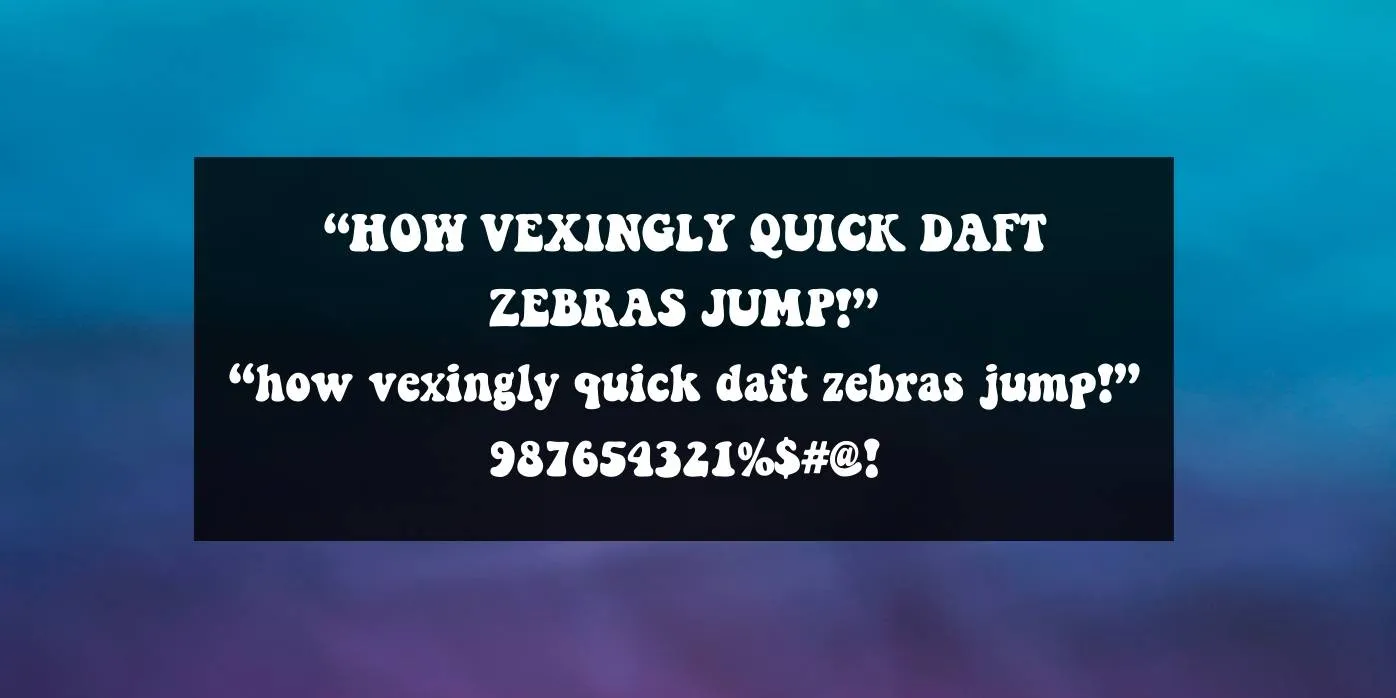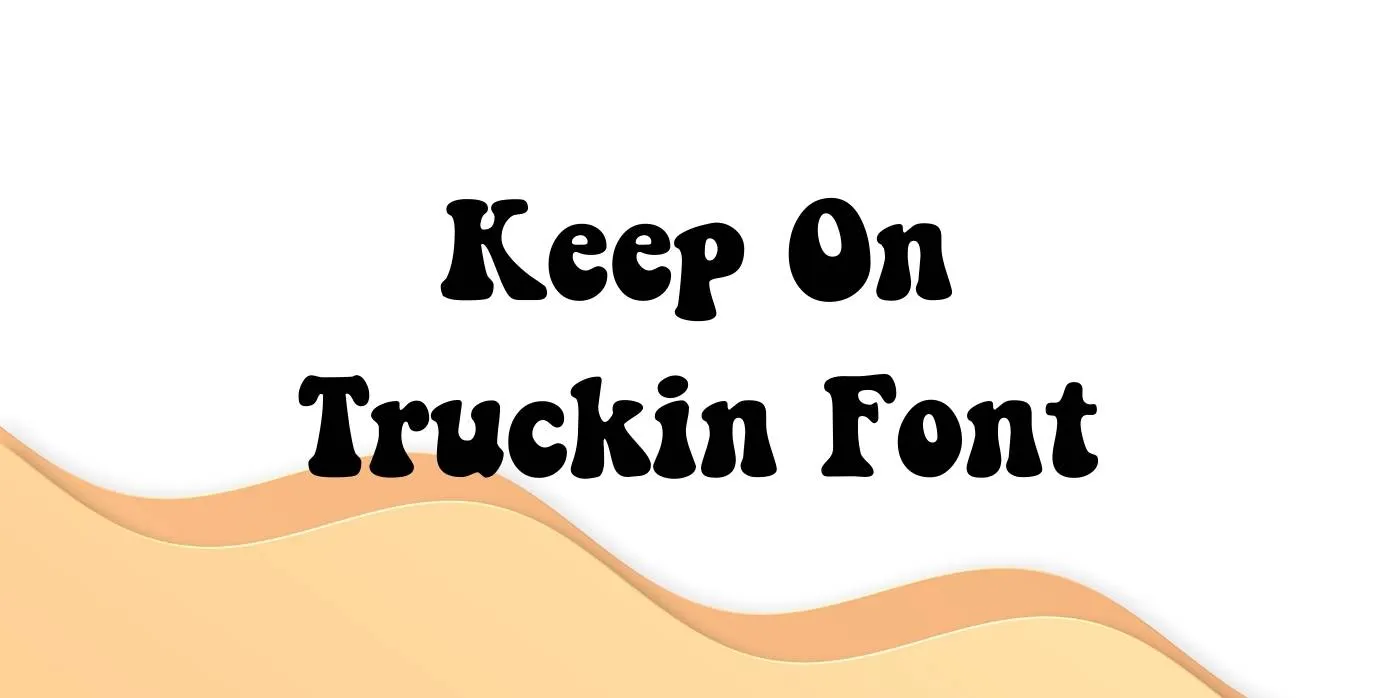
Keep on Truckin Font
Keep on Truckin Font is a famous font that belongs to the fancy font family. This typeface was designed by Brain Eaters Font Co. The designer has used a unique style in this font that makes it different from other fonts. This font was inspired by the famous cartoon strip of the same name.